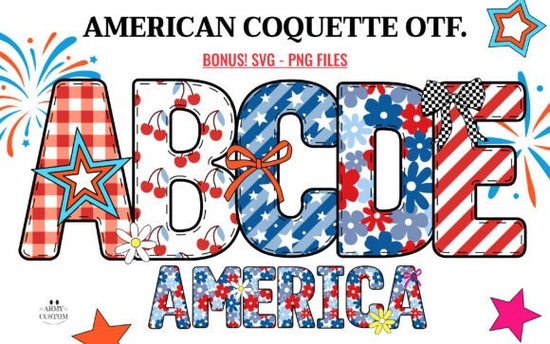
If you're working on a design that calls for bold reds, crisp whites, and deep blues think Memorial Day banners, Fourth of July T-shirts, or classroom posters for Constitution Day the American Coquette Font offers a fresh, stylish way to bring patriotic flair to your projects. It’s not just another script or block letter; this font blends preppy American charm with playful curves and clean lines, making it ideal for both festive crafts and everyday branding with a stateside twist.
Designed with the spirit of U.S. holidays in mind, the American Coquette Font comes in two distinct versions: a standard black vector font and a multicolor version. The black version works seamlessly with Cricut Design Space and most cutting machines, so crafters can easily cut vinyl decals, iron-on shirts, or paper goods without compatibility issues. However, if you’re drawn to the vibrant layered look of the color version which features built-in red, white, and blue tones you’ll need design software like Adobe Photoshop, Illustrator, Silhouette Studio, or Inkscape. Just keep in mind that the OTF/TTF files for the color variant aren’t supported in Cricut, so plan your workflow accordingly.
This font shines when used for seasonal and community-focused designs. Think:
- Print-on-demand mugs and T-shirts for Independence Day
- School event flyers around Veterans Day or Memorial Day
- DIY home décor like wooden signs or canvas art
- Social media graphics for small businesses running patriotic promotions
- Classroom name tags or bulletin board headers during back-to-school season with an Americana theme
Because of its clean yet characterful letterforms, it pairs well with minimalist layouts or more detailed vintage-inspired backgrounds. If you're creating layered SVG files for commercial use, the black version gives you full control over color fills and cuts ideal for sellers on Etsy or Amazon Merch.
Many fonts labeled “American” lean heavily into rustic or military styles think distressed edges or stencil cuts. The American Coquette Font stands out by offering a brighter, more upbeat aesthetic. It’s closer in vibe to the cheerful energy of summer parades and school pep rallies than to solemn memorials. If you’ve browsed our collection of patriotic US fonts, you’ll notice this one leans into color and personality rather than strict tradition.
While it’s perfect for flag-waving occasions, don’t limit it to just June–July. Its preppy, all-American feel works year-round for:
- Local business logos (think diners, ice cream shops, or boutique gyms)
- Team spirit gear for high school or college events
- Branded packaging for handmade goods sold at farmers' markets
- Invitations for backyard BBQs or neighborhood block parties
If you’re ready to add a touch of joyful patriotism to your next creation, the American Coquette Font offers both versatility and visual charm without leaning into cliché. Just pick the right version for your tools, and let the design do the talking.